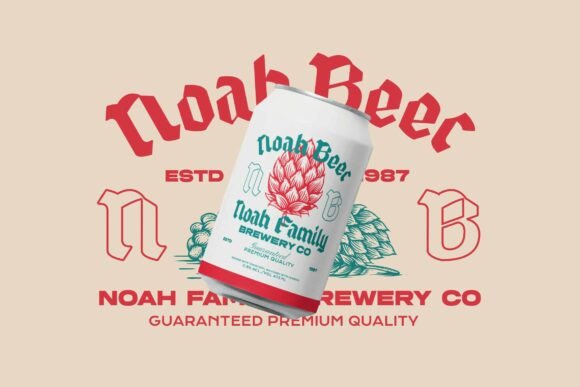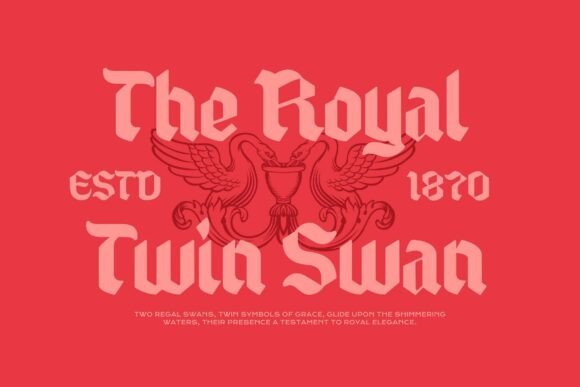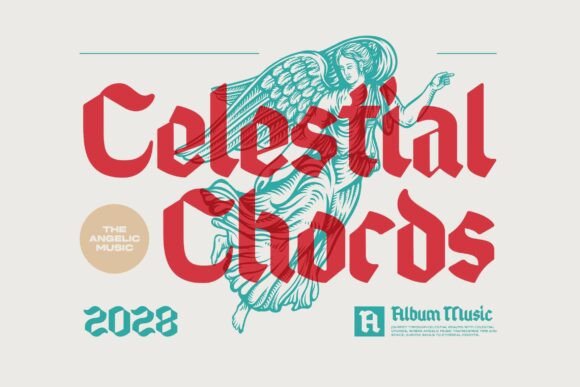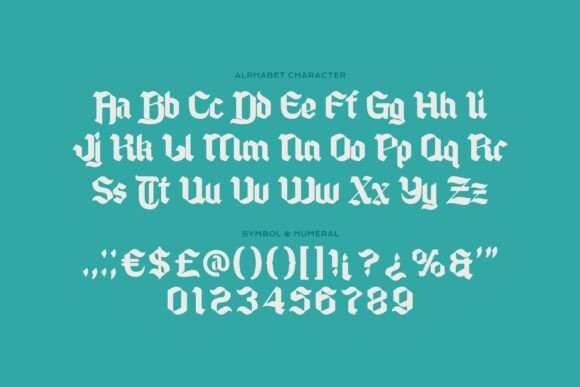
Unleashing the Power of Typography: Heraldic Shadows Font
Have you ever stared at a blank page, trying to conjure up the perfect font to match the intensity of your creative project? The struggle is real, but what if I told you there’s a font that can transport you straight into the heart of darkness, where the only thing that matters is raw energy and unbridled aggression?
Enter the Heraldic Shadows Font, a bold and menacing typeface that’s been forged in the depths of the death metal music genre. With its sharp, angular letterforms and jagged edges, this font is the ultimate design resource for anyone looking to unleash their inner beast. Whether you’re a seasoned designer or just starting out, the Heraldic Shadows Font is a game-changer that will elevate your creative project to new heights.
But what sets this font apart from the rest is its versatility. From display fonts for headings to logo fonts, invitations, and branding, the Heraldic Shadows Font is the perfect companion for any high-quality design project. And the best part? It’s available for free download with a transparent background, making it a must-have in every designer’s toolkit.
Key Features of Heraldic Shadows Font
- Unique blend of heraldic and gothic elements, perfect for a creative project that requires a touch of elegance and mystery.
- Features a range of intricate details and ornaments, making it perfect for designers who want to add a touch of sophistication to their work.
Honest Review: Heraldic Shadows Font
As a designer, I’m always on the lookout for high-quality design resources to elevate my creative projects. Recently, I stumbled upon the Heraldic Shadows Font, and I must say, it’s a gem. The font’s unique blend of heraldic and shadow elements makes it perfect for adding a touch of sophistication to any design.
What works well with this font is its versatility. You can use it for a wide range of creative projects, from logo designs to typography-based artwork. The font’s transparent background allows for seamless integration with other design elements, making it a great addition to any design kit.
Here are some of the features that I particularly like about the Heraldic Shadows Font:
- ✨ Unique blend of heraldic and shadow elements
While the Heraldic Shadows Font is a great resource, I do have a few minor criticisms. The font may not be suitable for all types of designs, particularly those that require a more minimalist approach. Additionally, the font’s bold lines can sometimes be overwhelming if not used judiciously.
Overall, I’m impressed with the Heraldic Shadows Font. Its unique design and high-quality production make it a valuable addition to any designer’s toolkit. With a little creativity, this font can help take your designs to the next level.